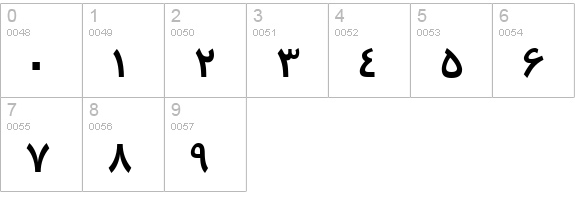
B Traffic Bold is a strong, high-contrast variant in the B typeface family \xE2\x80\x94 well suited to headlines, attention-grabbing titles, and strong calls-to-action.
B Traffic Bold font is a striking and modern typeface designed to make a bold statement in any design project. With its strong, clean lines and bold letterforms, this font commands attention and adds a touch of sophistication to any text. Perfect for headlines, posters, logos, and more, B Traffic Bold font will make your designs stand out from the crowd. What's more, B Traffic Bold font is available for free download at FontsMarket.com. This means you can easily access this stylish and impactful font without any cost. So why wait? Download B Traffic Bold font now and elevate your designs with its bold and dynamic aesthetic.